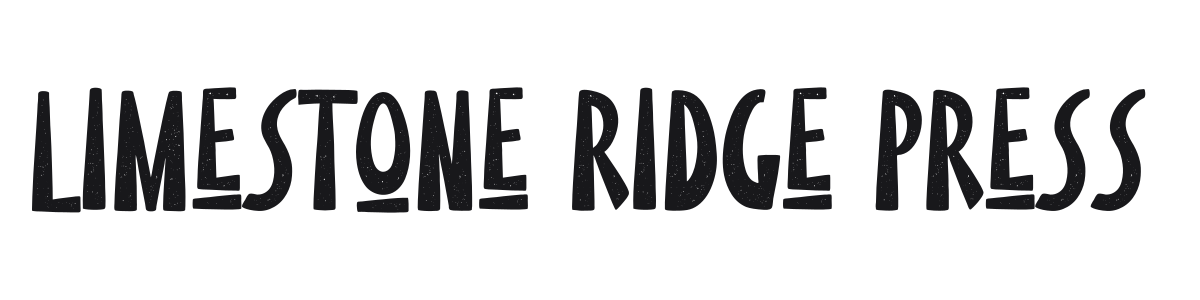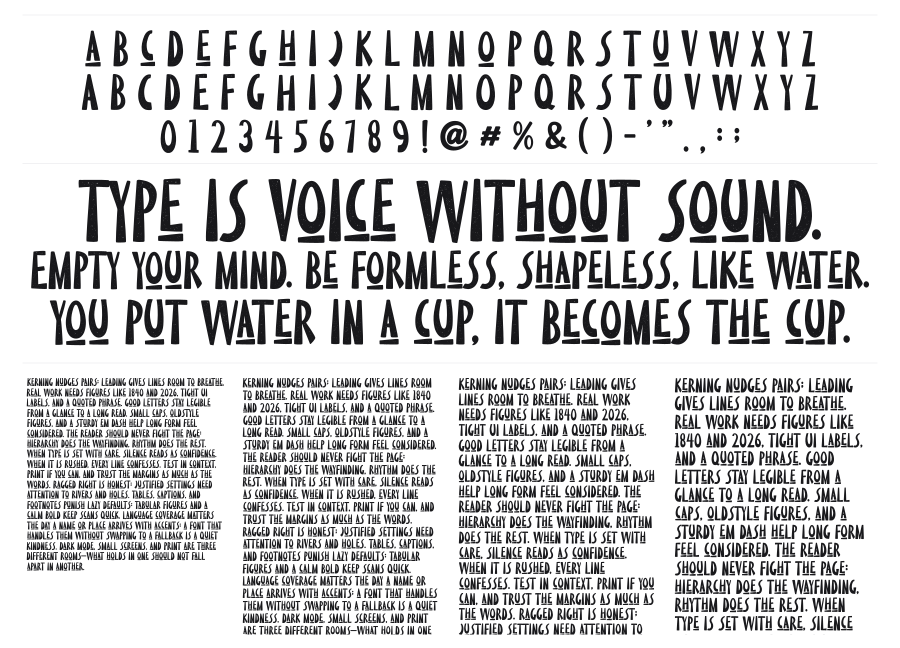
Limestone Ridge Press
Limestone Ridge Press is a bold condensed display sans with a tactile, letterpress-distressed texture throughout. The slightly irregular widths and blunt stroke endings give it an authentic hand-crafted feel, somewhere between painted signage and woodblock type. It suits adventure brands, rustic packaging, and outdoor-themed headlines.